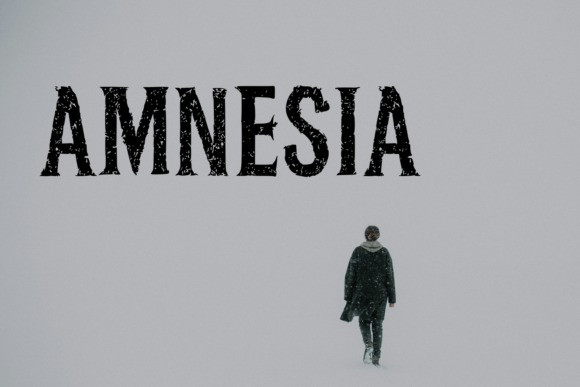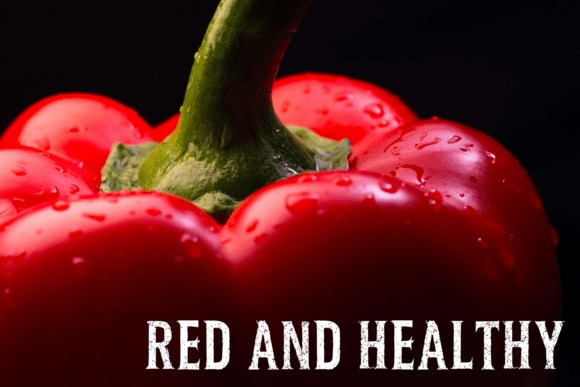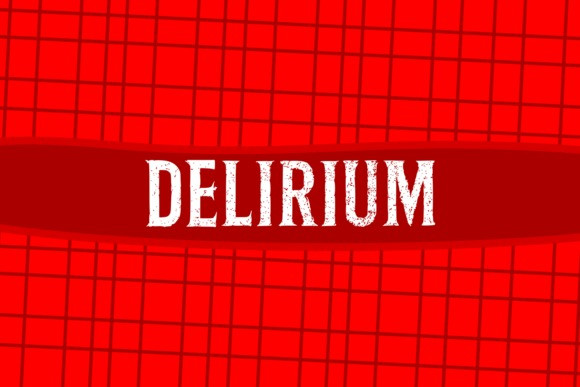
Delirium Font
Delirium Font – This bold and striking font is the perfect choice for horror, thriller, and Halloween-themed designs. Its heavy letter forms and subtle distortions create a chilling atmosphere that captures attention and adds intensity to any project. Whether you are designing a movie poster, a haunted event flyer, or spooky merchandise, this font delivers the eerie impact you need. Its unique style blends fear and drama, making it ideal for titles, headlines, and bold statements. Add a touch of suspense and mystery to your creative work with a font that was made to leave a lasting impression in the dark. Wish you like it.